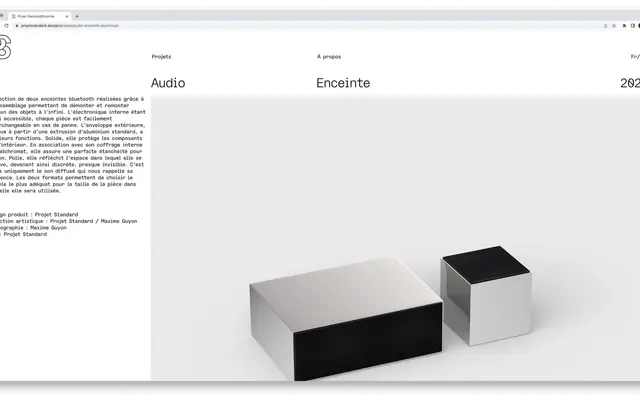
ModelStandard
A variable monospaced typeface from Pizza Typefaces with axes for weight, italic and a proportional-to-mono blend.
ModelStandard is a variable monospaced sans with three axes: weight, italic and a monospace axis that allows the spacing to shift between proportional and full monospaced. Alternate glyphs for R, Q, a and g offer additional character, suggesting the font is aimed at both coding and editorial contexts. The variable approach gives it flexibility that a static monospaced font would not allow.
ModelStandard is explicitly presented as a monospaced typeface with variable axes including a monospace axis, italic axis, and weight axis, placing it firmly in the mono category with a neutral sans-serif construction.